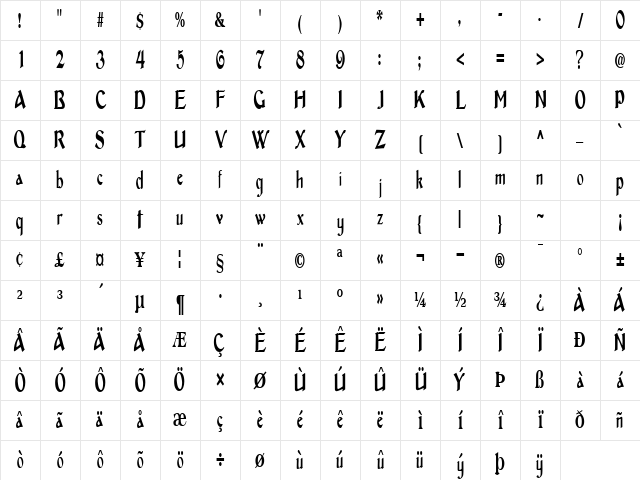
Julian Regular
Design Context for Julian
Julian is a composed and adaptable typeface that performs quietly and consistently across a wide range of design contexts.